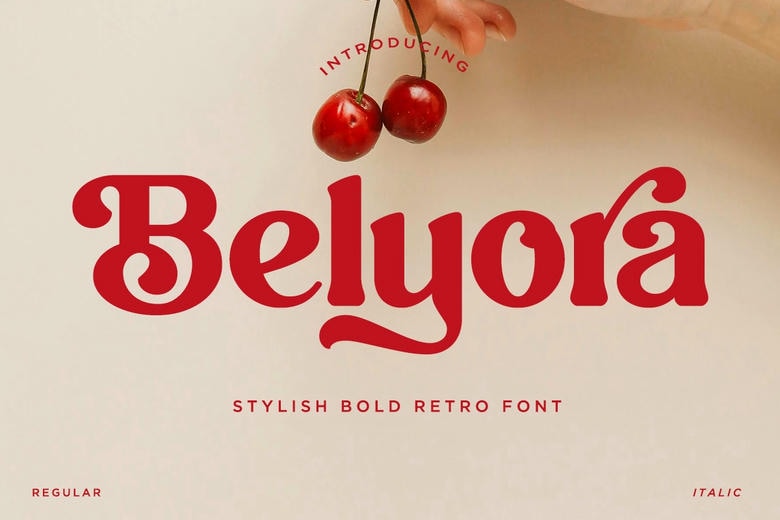
Belyora Font
Belyora is a stylish bold retro font which is developed to add character and style to your projects. With alternates and ligatures, this typeface is versatile in the production of unique typography styles. Best suited to branding, logos, posters, magazines, packaging, and print design Belyora provides a classic modern appearance. This font is ideal to make a statement with either a regular or italic version in a high-end editorial, fashion, and stylish branding.
Belyora Stylish Bold Retro Font